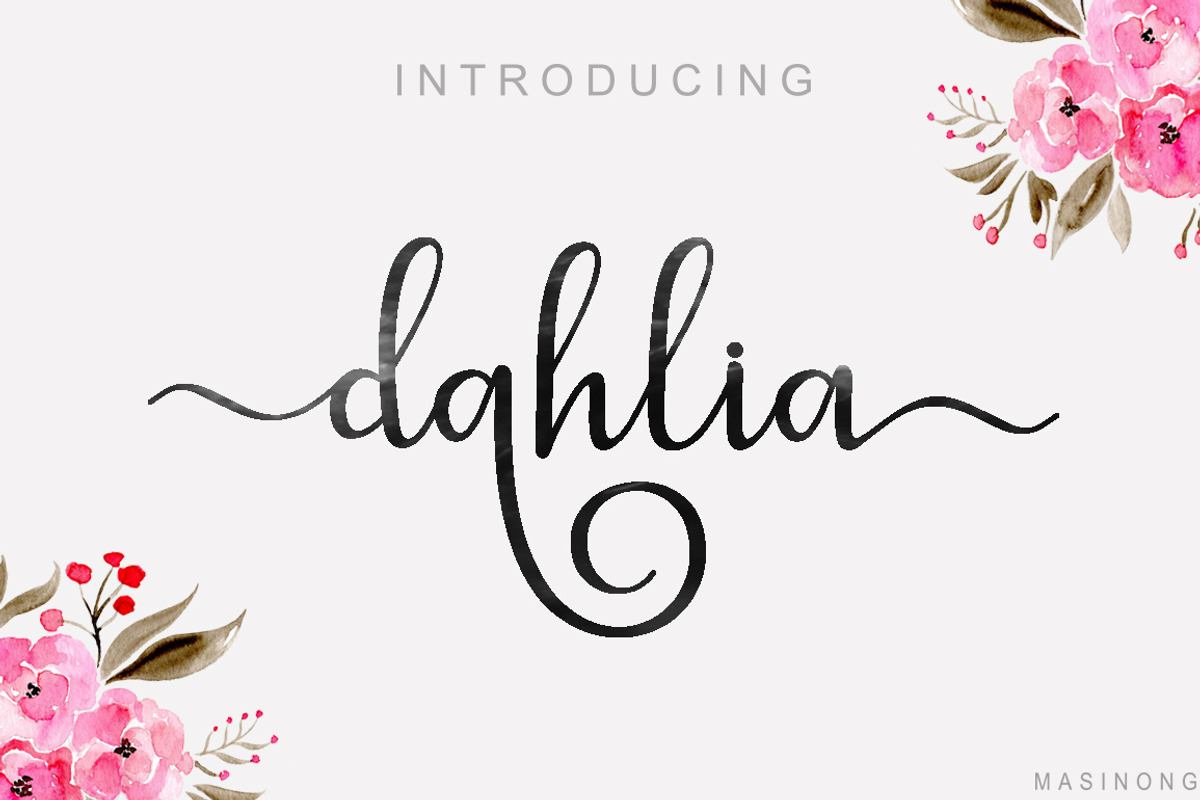
You must purchase this font for commercial use. However, you can download Dahlia Script Font Free Download for testing purposes. Dahlia Script is an elegant and flowing handwritten font with a sophisticated calligraphic style. Perfect for creating invitations, logos, branding, greeting cards, and any design that needs a personal, yet refined touch.
With its graceful curves and smooth transitions, Dahlia Script adds a luxurious and timeless feel to your typography. Whether you're working on a wedding invitation, designing a classy brand, or crafting a bespoke logo, this font will elevate your design with its beauty and fluidity.